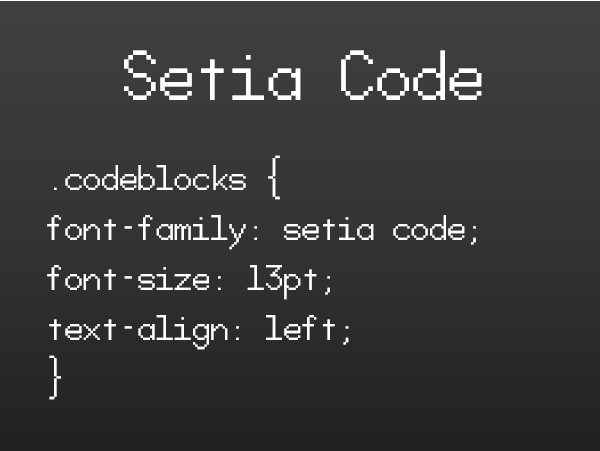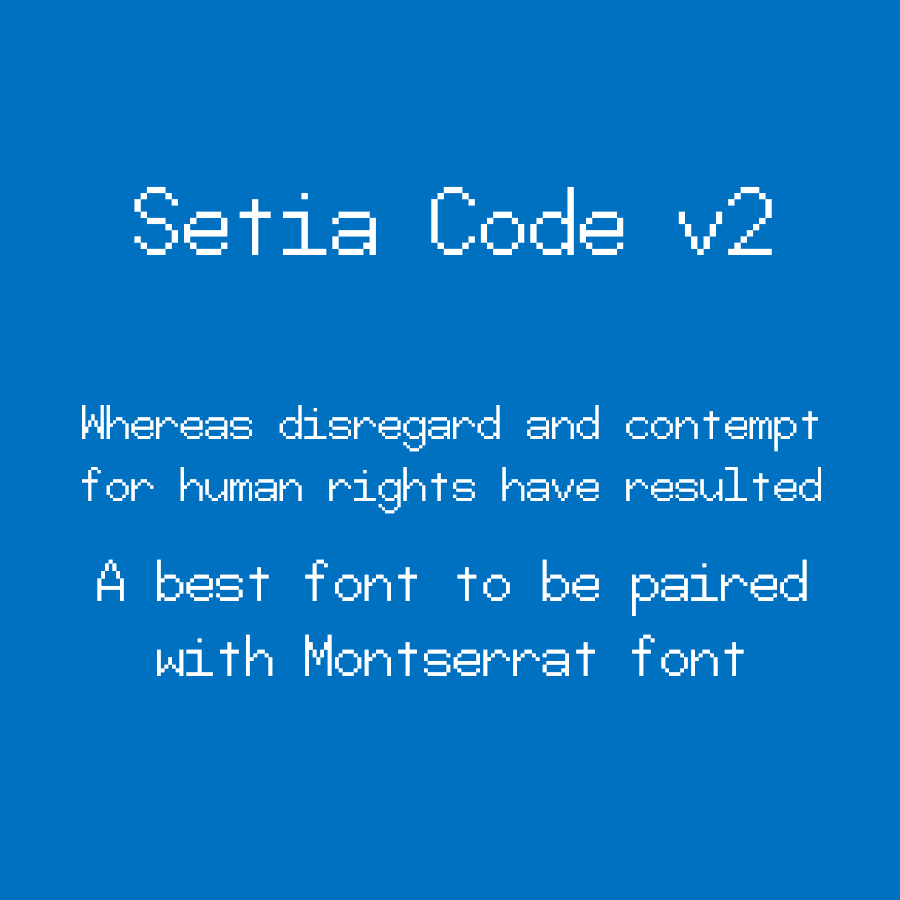
• Setia Code is a blocky monospaced font that inspired from these four fonts; Tobias Frere-Jones's "Gotham" font, Joel Carrouche's "Linotte" font, Julieta Ulanovsky's "Montserrat" font, and the Rodrigo Fuenzalida's "Outfit" font. While this monospaced font is inspired from these four proportional fonts, it also inspired from my two monospaced fonts, winch is "Karina Console Simple" and "Lexita Mono". The name of "Setia" means "Loyal" in Indonesian, bringing up the one glory, playful, adorable, and beautiful monospaced font that can be used alongside with these four proportional fonts; "Gotham", "Linotte", "Montserrat", and "Outfit" fonts. This monospaced font is suitable for coding, code blocks, tabular datas, and especially can be paired with these four fonts.
When this font is just recently released, this font used to have single-storey lowercase “a”. But since 07/07/2026, the lowercase “a” got changed to double-storey form, this change also applies to “Commercial At” symbol and the ordinals itself since 18/07/2026.
17 May 2026 Update:
- Slighty repositioned the lowercase "k" letters
- Minor adjustments at "IJ" ligature
- Added "ft" ligature
26 May 2026 Update:
- Fixed the glyph spacing in one of glyphs
- Vulgar fractions now uses open “4”
07 July 2026 Update:
- Changed the single-storey lowercase “a” to double-storey design, but the symbols with single-storey lowercase “a” is retained.
- The top stroke in “1” is now diagonal to slighty decrease the ambiguity.
18 July 2026 Update:
- All the rest of symbols with single-storey lowercase “a” has been changed to double-storey design.
• - Improved the ordinal alphabet symbols.
• - Added the infinity sign glyph.
22 August 2026 Update:
- Some glyphs has been adapted to match with other fonts.
- The “&” (Ampersand sign) is now open.
Here's quick sample of the Setia Code font
Since 7 July 2026, Setia Code font now uses double-storey lowercase “a” and diagonal-top digit “1”, but the Ordinals and Commercial At symbols are retains with single-storey “a”.
Having ligatures in a monospace font is useless and beats the whole purpose of monospace. It is self-defeating, especially when you position your font for computer code. The lowercase f and t are narrower, compensated by gaps of white space. The rest of the font looks decent and functional.
Hey, Frodo7. Sorry to hear your feedback. These ligatures are placed in Alphabetic Presentasion Forms, and this glyph is added as a fallback/placeholder to other fonts. Every font designer has its own opinion, and they can add these type of glyphs if they want. If you don't need it, just don't use these glyphs anymore. - It's a very 'simple' step.